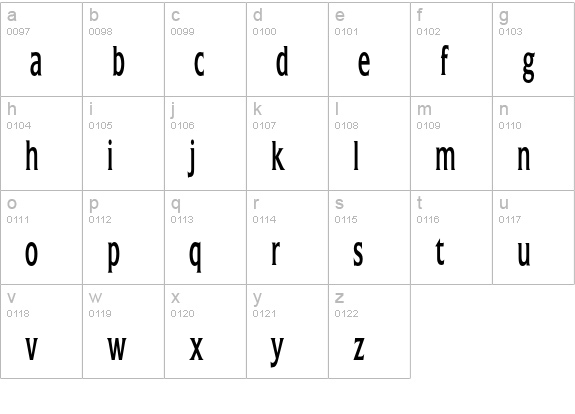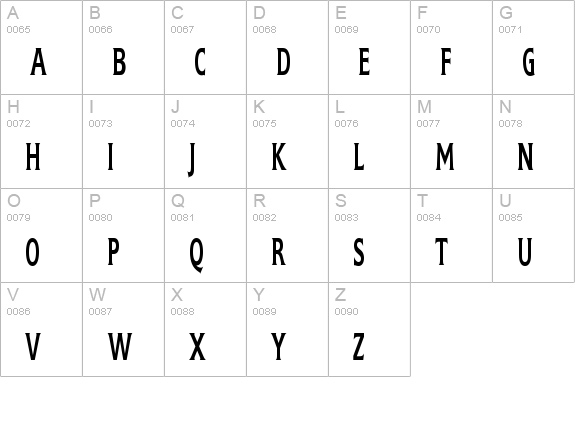
TRGFlange Font Details
TRGFlange font is a unique and eye-catching typeface that will instantly captivate your audience. Its bold and edgy design is perfect for adding a touch of modernity to any project. Whether you're working on a poster, logo, or website, TRGFlange will surely make a lasting impression. This font is not only visually appealing, but it also offers great versatility. With its wide range of weights and styles, you can easily customize the look and feel of your text to suit your specific needs. From thin and elegant to thick and powerful, TRGFlange has it all. What sets TRGFlange font apart from others is the fact that it is freely available to download at FontsMarket.com. This means that you can access this amazing font without any restrictions or limitations. Whether you're a professional designer or simply someone who wants to add a creative touch to their personal projects, TRGFlange font is here to fulfill your needs. With its sleek and modern design, TRGFlange font is perfect for creating attention-grabbing headlines, captivating logos, or even unique branding materials. Its clean lines and sharp edges give your text a professional and polished look, making it stand out from the crowd. Don't miss out on the opportunity to enhance your designs with TRGFlange font. Download it for free at FontsMarket.com and unleash your creativity today.